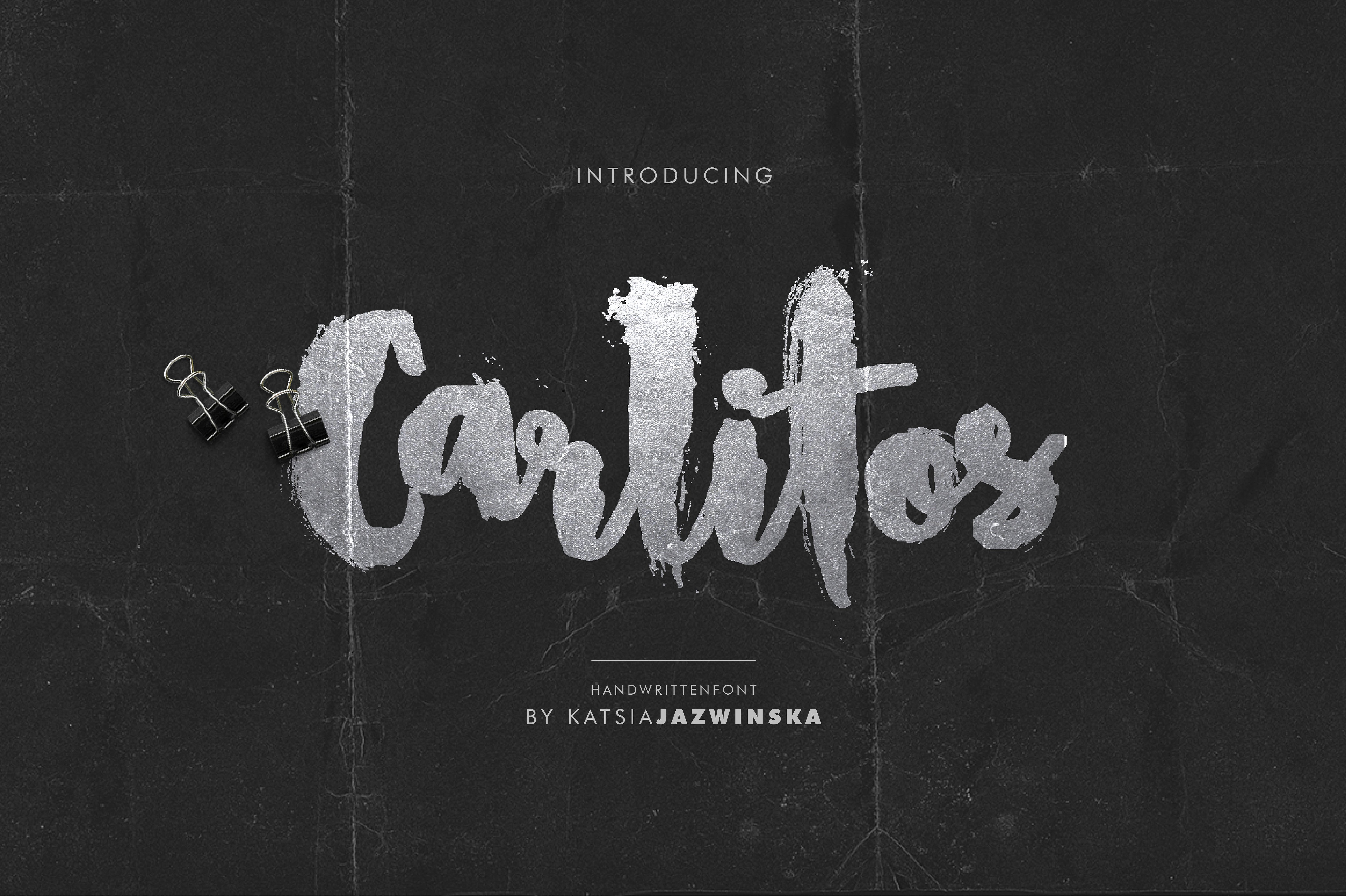
Carlitos Brush
Carlitos Brush Font
Introducing Carlitos, a handwritten chaotic brush script with imperfect flow and grunge style. Carlitos is brush like and almost delicate, yet somehow manages to also be unsettling. The texture around the edges is messy and the grunge effect is almost spooky. Again, it is handwritten and is perfect for a bold header.